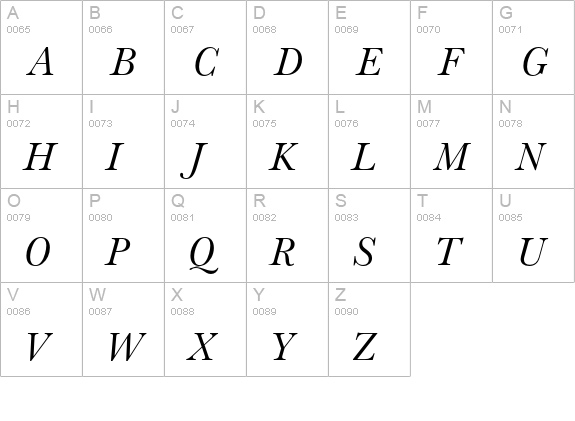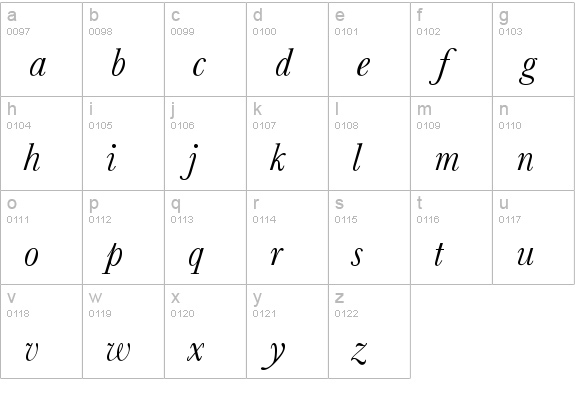
Baskerville No.2 Italic is a distinctive, italic variant in the Baskerville typeface family \xE2\x80\x94 well suited to design and typography projects.
Baskerville No.2 Italic font is a timeless and elegant typeface that exudes sophistication and charm. Its slanted design adds a touch of dynamism and flair to any text, making it perfect for conveying a sense of style and refinement. The sleek and graceful curves of this font make it ideal for use in various design projects, from invitations to branding materials. What makes Baskerville No.2 Italic font even more appealing is that it is available for free download at FontsMarket.com. This means that you can easily access and use this exquisite font in your projects without any cost. Whether you are a designer looking to elevate your creations or an individual looking to add a touch of class to your personal projects, Baskerville No.2 Italic font is a fantastic choice that won't break the bank. Download it today and let its beauty enhance your designs.